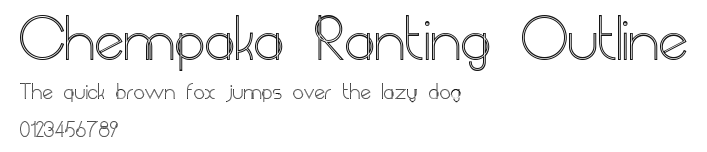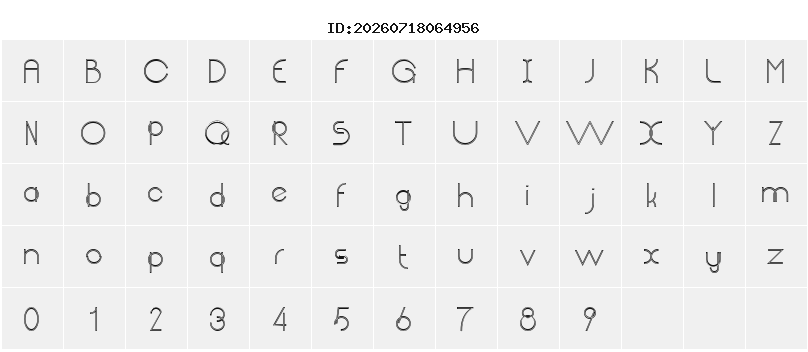
Chempaka Ranting Outline Preview
• Font Name: Chempaka Ranting Outline
• Full Font Name: Chempaka Ranting Outline
• PostScript Name: ChempakaRantingOutline
• Designer: cenz qobbal
• Manufacturer: cenz qobbal
About Chempaka Ranting Outline.ttf
Chempaka Ranting Outline.ttf is a modern, elegant sans-serif font designed for ultimate readability and visual harmony. Perfect for branding, headlines, web design, and print materials.